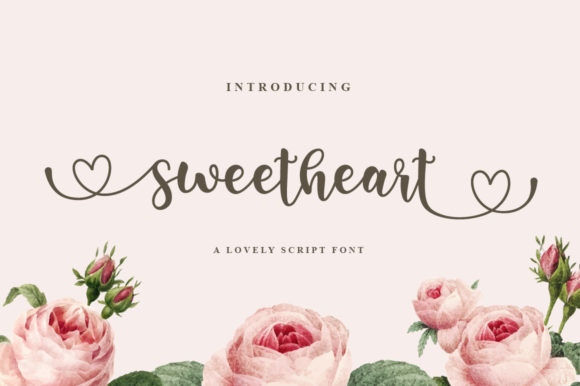
Introducing Sweetheart Font, the calligraphic masterpiece that captures the essence of love, romance, and timeless beauty. Step into a world where words dance with grace and elegance, leaving a trail of visual enchantment on your digital canvas.
Crafted by the visionary artists at fanastudio, Sweetheart Font is a script font that transcends the ordinary, transforming your creative projects into captivating expressions of art. Its meticulously designed curves and flourishes evoke a sense of nostalgia and charm, while its unwavering legibility ensures effortless readability across various platforms.
With Sweetheart Font, you'll embark on a creative journey where every letter tells a story. Its harmonious flow and graceful strokes lend themselves perfectly to logos that exude sophistication, branding that leaves a lasting impression, social media posts that captivate audiences, and DIY projects that radiate creativity.
Prepare to be mesmerized by the versatility of Sweetheart Font. Its PUA encoding grants you access to a treasure trove of glyphs and swashes, empowering you to unleash your imagination and add intricate details that elevate your designs. Create monograms that shimmer with personality, embellish invitations with a touch of romance, or craft greeting cards that convey heartfelt sentiments.
Sweetheart Font is not just a collection of characters; it's an invitation to express your emotions, share your passions, and communicate your message with a touch of elegance. Its inherent beauty and versatility make it the ideal choice for authors, bloggers, and content creators seeking to captivate their audience with visually stunning typography.
So, embrace the allure of Sweetheart Font and embark on a creative adventure where every word carries a whisper of romance and every design radiates with timeless charm. Let your imagination soar, knowing that you possess the perfect tool to transform your creative visions into unforgettable realities.